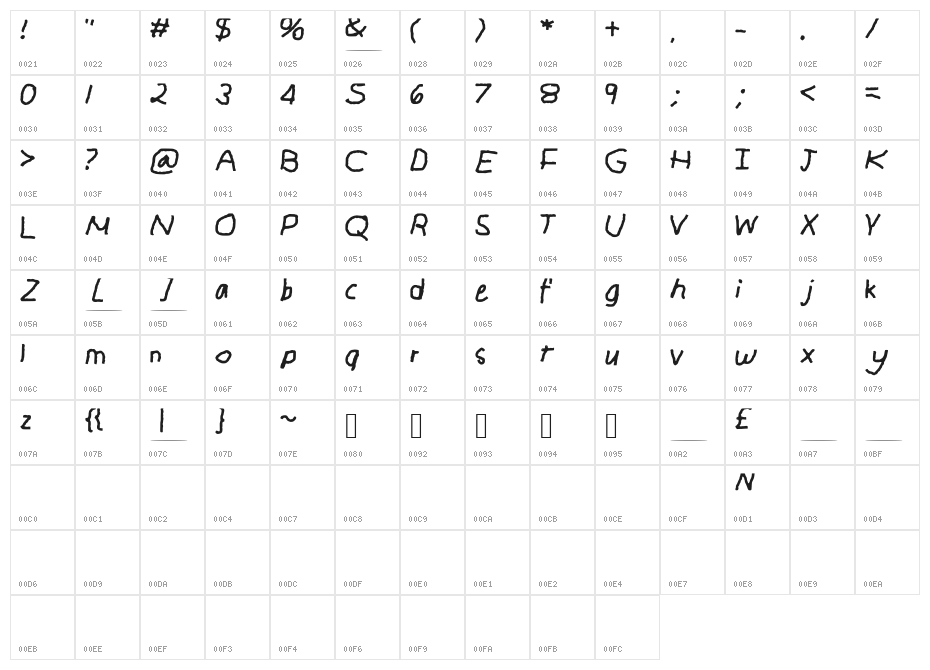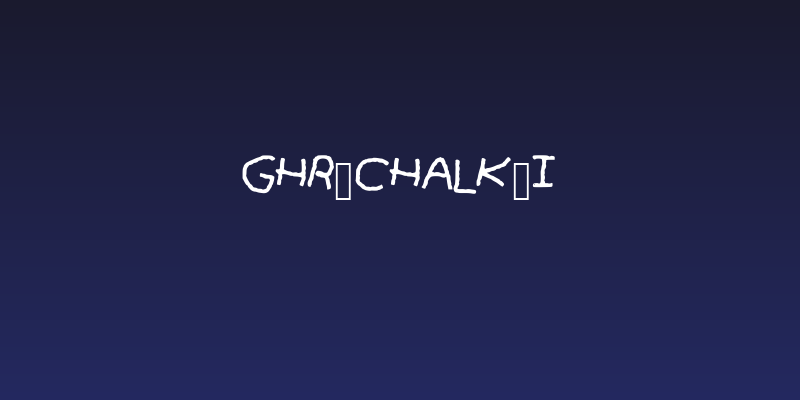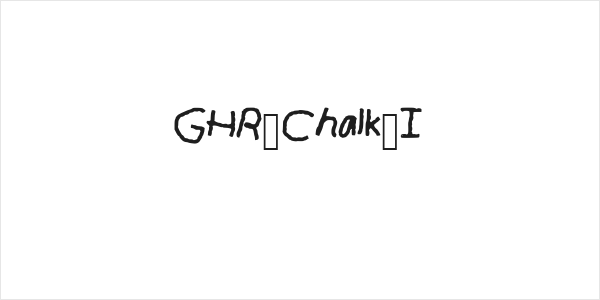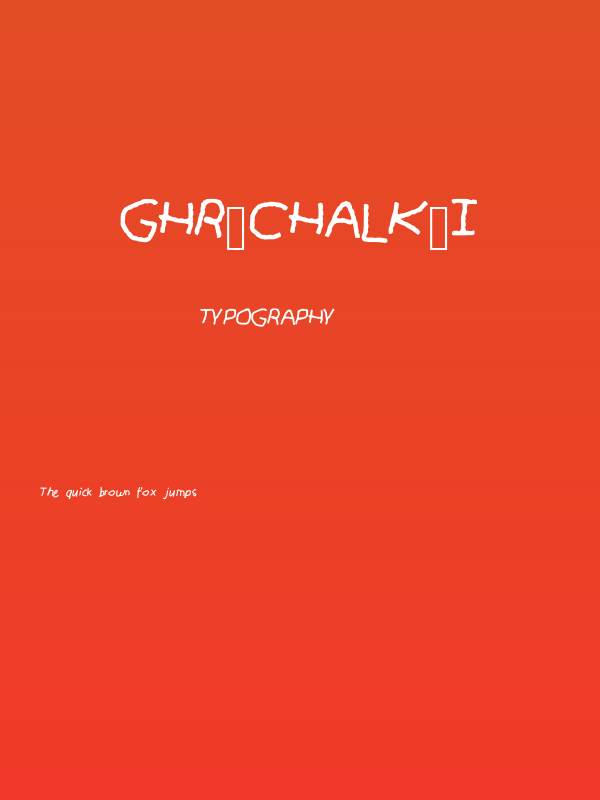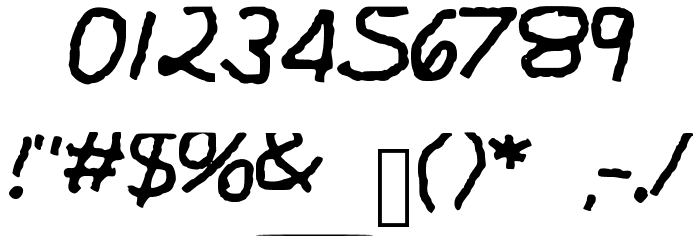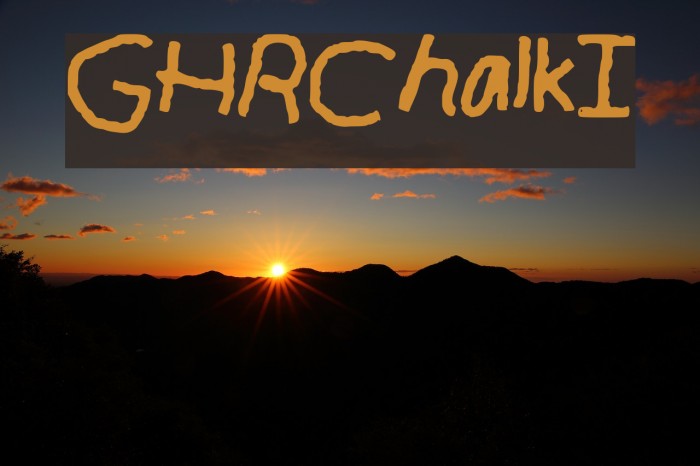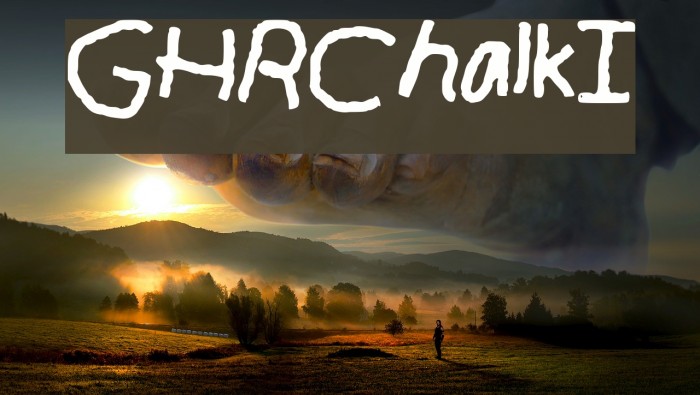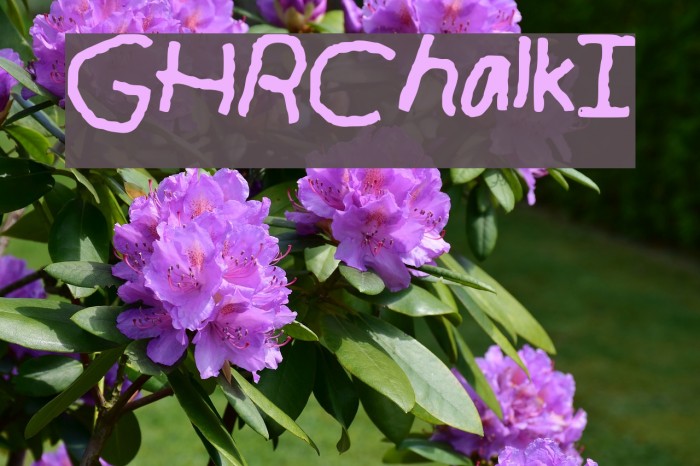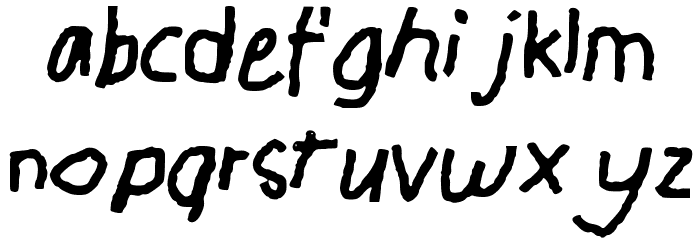
GHR_Chalk_I Font
GHR_Chalk_I Description
This font features a playful and informal handwritten style, reminiscent of chalk writing on a blackboard. The characters are slightly irregular, adding to the casual and approachable feel. The uppercase and lowercase letters are distinct, with a slight slant that suggests movement and energy. Numbers and special characters maintain the same playful aesthetic, making the font versatile for creative projects. The strokes are bold and consistent, providing good readability while retaining a hand-drawn charm.
| Use Case | Headlines, Informal text, Creative designs |
| Proposed Projects | Ideal for educational materials, children's books, playful branding, and creative posters. |